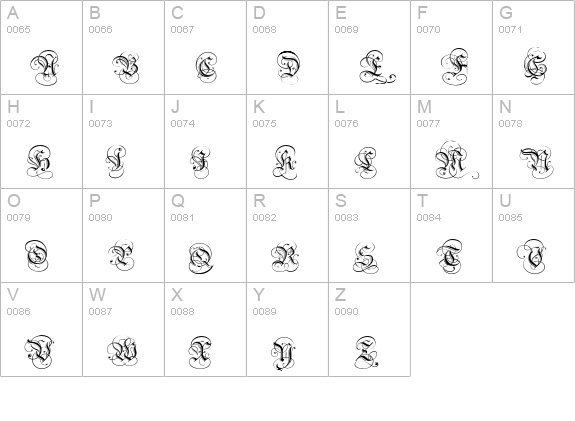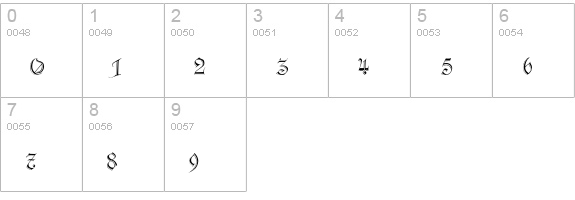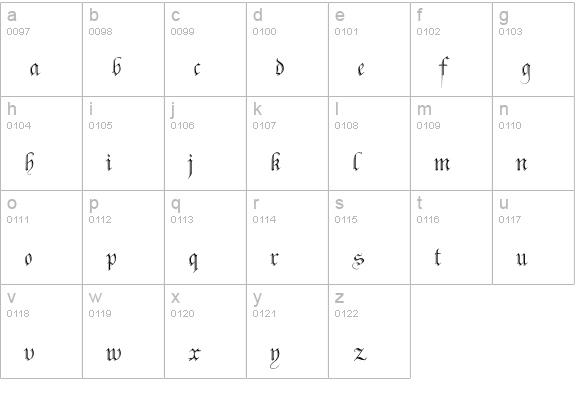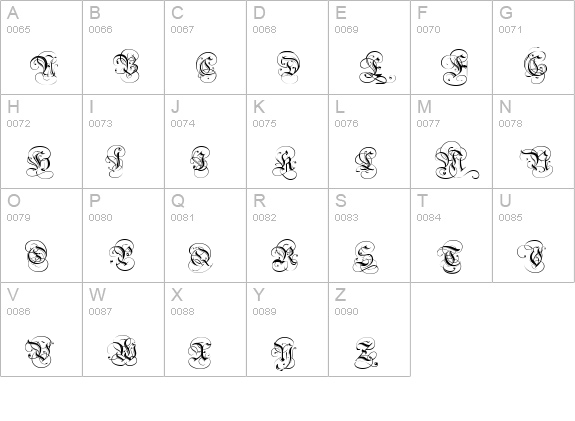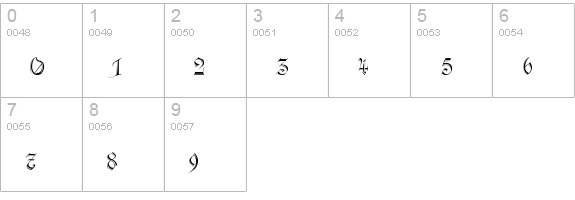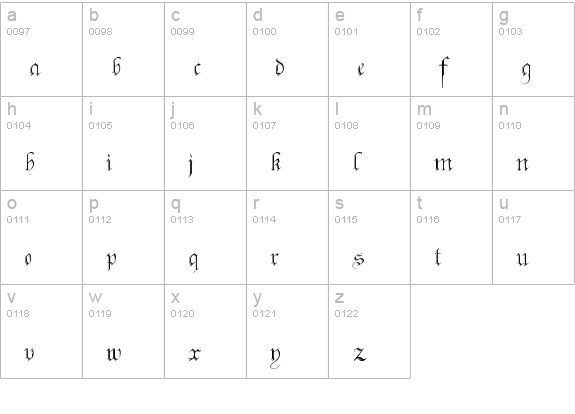
Carol Etched Font Details
Introducing Carol Etched font, a delicate and elegant typeface that exudes sophistication and charm. With its intricate etched design, this font captures a sense of vintage beauty and timeless appeal. Perfect for adding a touch of class to invitations, branding, and other creative projects. The best part? Carol Etched font is available for free download at FontsMarket.com. Now you can easily enhance your designs with this stunning font without breaking the bank. Don't miss out on the opportunity to elevate your projects with the exquisite Carol Etched font. Download it today and let your creativity shine!